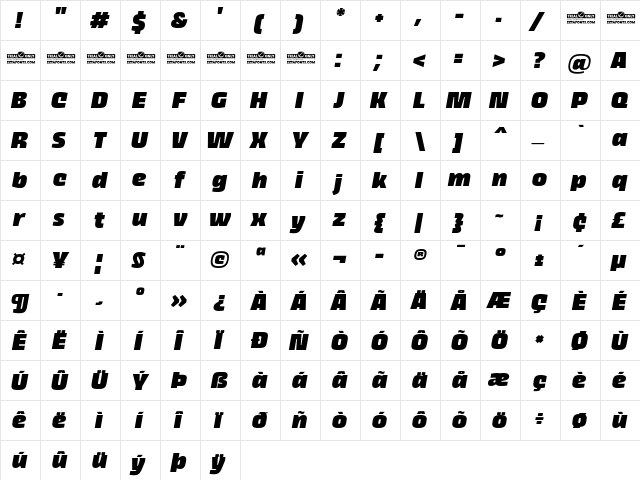
Thicker Trial Black Slanted
Foundry Zetafonts
StyleBlack Slanted
FoundryZetafonts
DesignerFrancesco Canovaro
Design Context for Thicker Trial Typeface
Thicker Trial takes a measured approach to typography — its balanced proportions and neutral character make it a reliable workhorse for both digital and print work. The dynamic lean of this cut emphasises speed and emphasis in any layout.